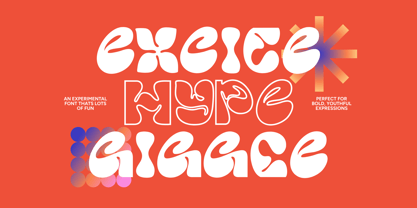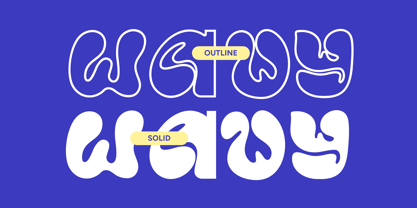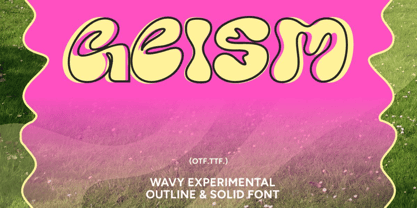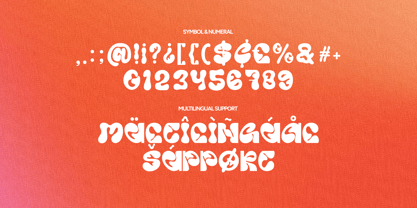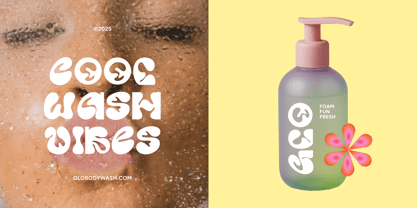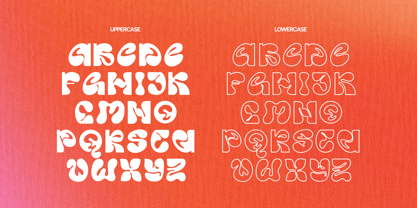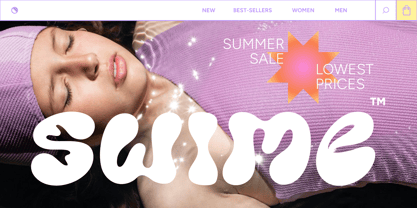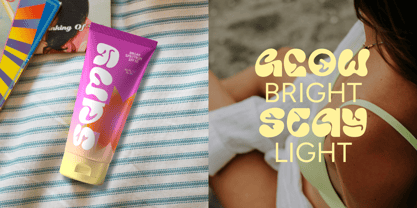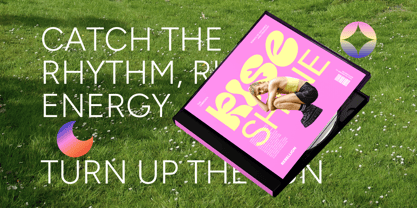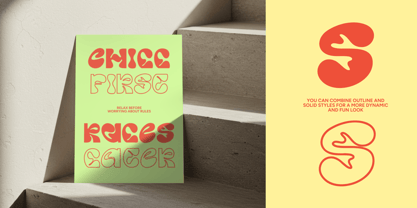
Geism
La famille de polices Geism a été conçue par Endra Kurnia Aziz et publiée par Matsero. Geism contient 1 styles. En savoir plus sur cette famille
Geism is a cheerful, wavy display font with soft, blobby curves that feel retro and fresh at the same time. Think 70s groovy + Y2K bubbles, perfect for skincare and beauty packaging, posters, festival artwork, merch, logos, and big social headlines. It comes in Solid and Outline so you can layer, mix weights, or pair them for instant contrast. Geism is designed to shine at larger sizes where its character really comes alive. It comes in Solid and Outline styles, giving you the flexibility to layer, mix, and pair them together for instant contrast.